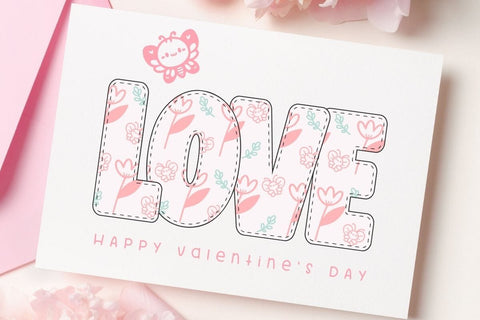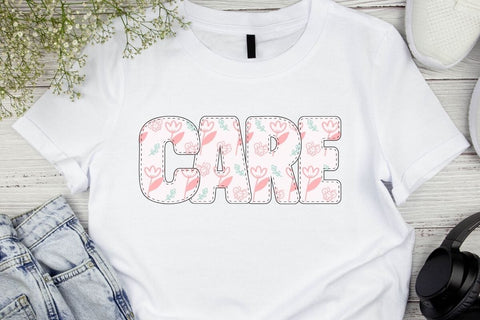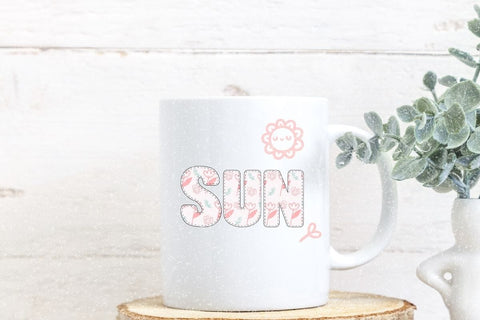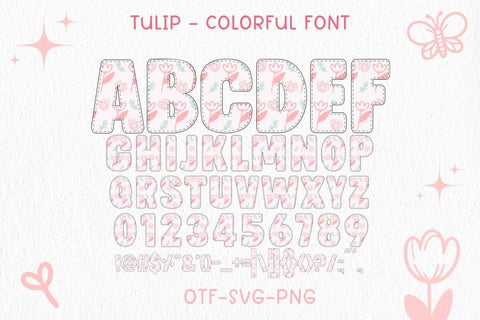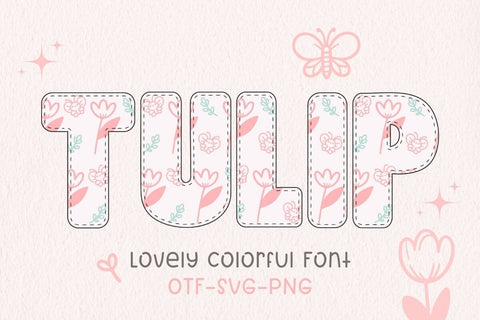
Tulip - Color Spring Font with Bonus Elements for Sublimation Crafts
Celebrate spring with this soft and sweet pastel font filled with tulip flowers, butterflies, and gentle patterns! "Tulip" is a colorful display font crafted especially for crafters who love cheerful and romantic vibes.
This set comes with uppercase letters, numbers, symbols, and 8 bonus SVG elements, including cute butterflies, tulips, and sun icons. Use it for greeting cards, spring T-shirts, baby showers, Mother’s Day gifts, or any adorable project!